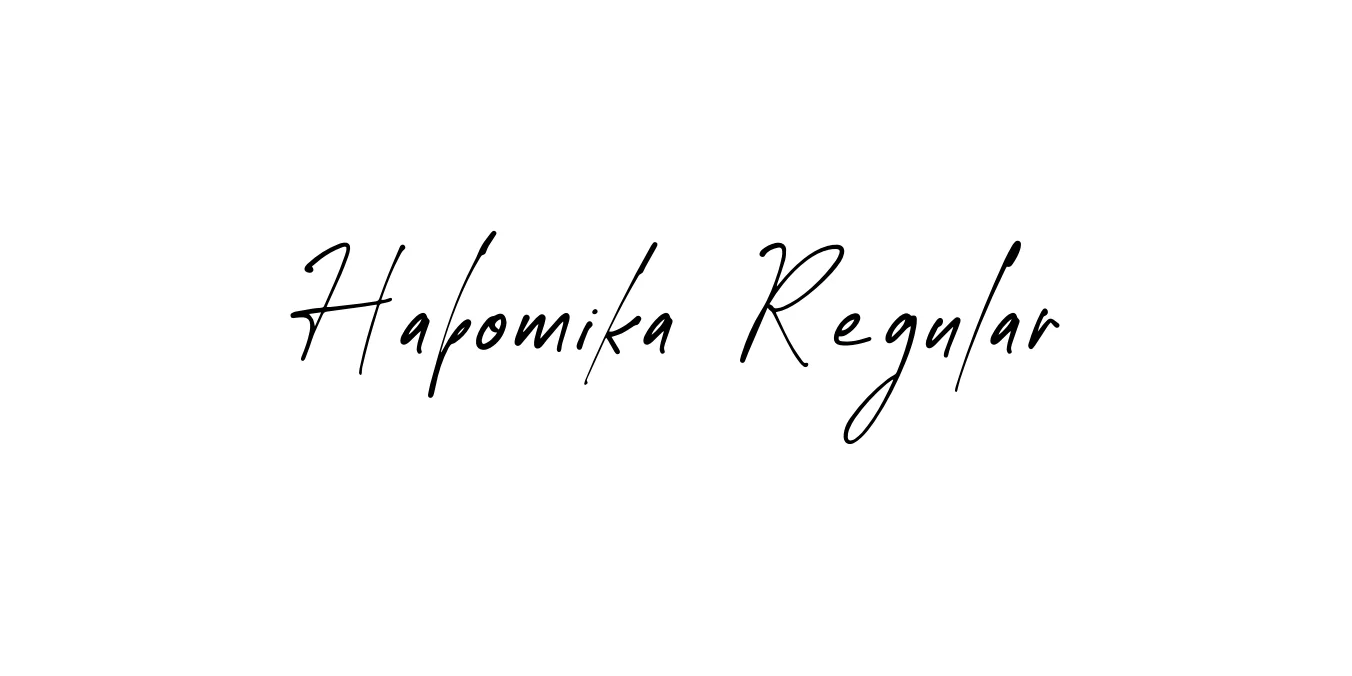
Habomika Regular
Designed by StringLabs Creative
Habomika Regular is a sophisticated and stylish handwritten script font characterized by its fluid, natural strokes and contemporary aesthetic. Developed by StringLabs Creative, this typeface aims to capture the essence of authentic penmanship, offering a balance between elegance and modern casualness. Each character is meticulously crafted to ensure a seamless flow, making it a favorite for designers looking to inject a personal, handcrafted feel into their digital and print projects.
Beyond its visual appeal, Habomika Regular provides a high degree of versatility through its unique ligatures and smooth transitions. It is particularly effective in high-end design contexts such as luxury branding, fashion editorials, and bespoke event stationery. The font's ability to remain legible while maintaining an artistic, signature-like quality makes it an excellent choice for creators who want their typography to stand out with a distinct and professional identity.
Habomika Regular Best Uses
Excellent for creating unique logos and brand identities for boutique and lifestyle brands.
Perfect for elegant invitations, save-the-dates, and romantic place cards.
Ideal for high-impact quotes, stories, and stylish promotional graphics.
Enhances the premium feel of beauty products, perfumes, and luxury gifts.